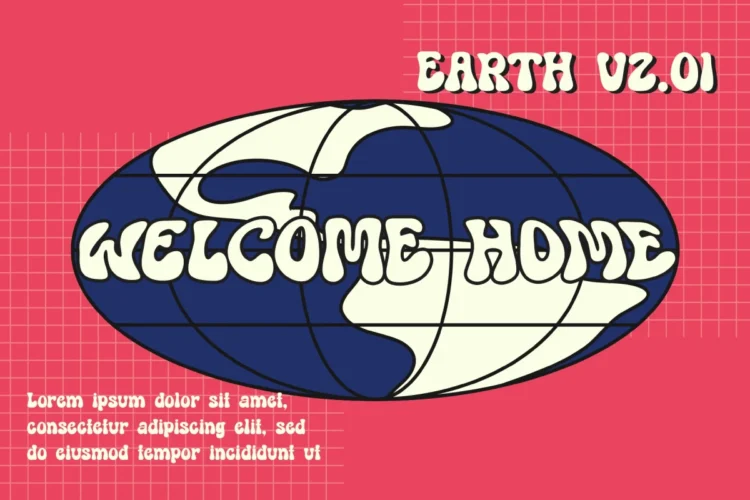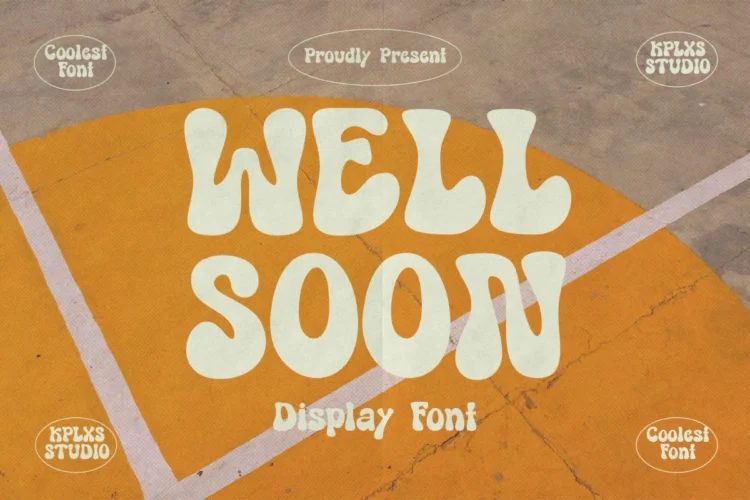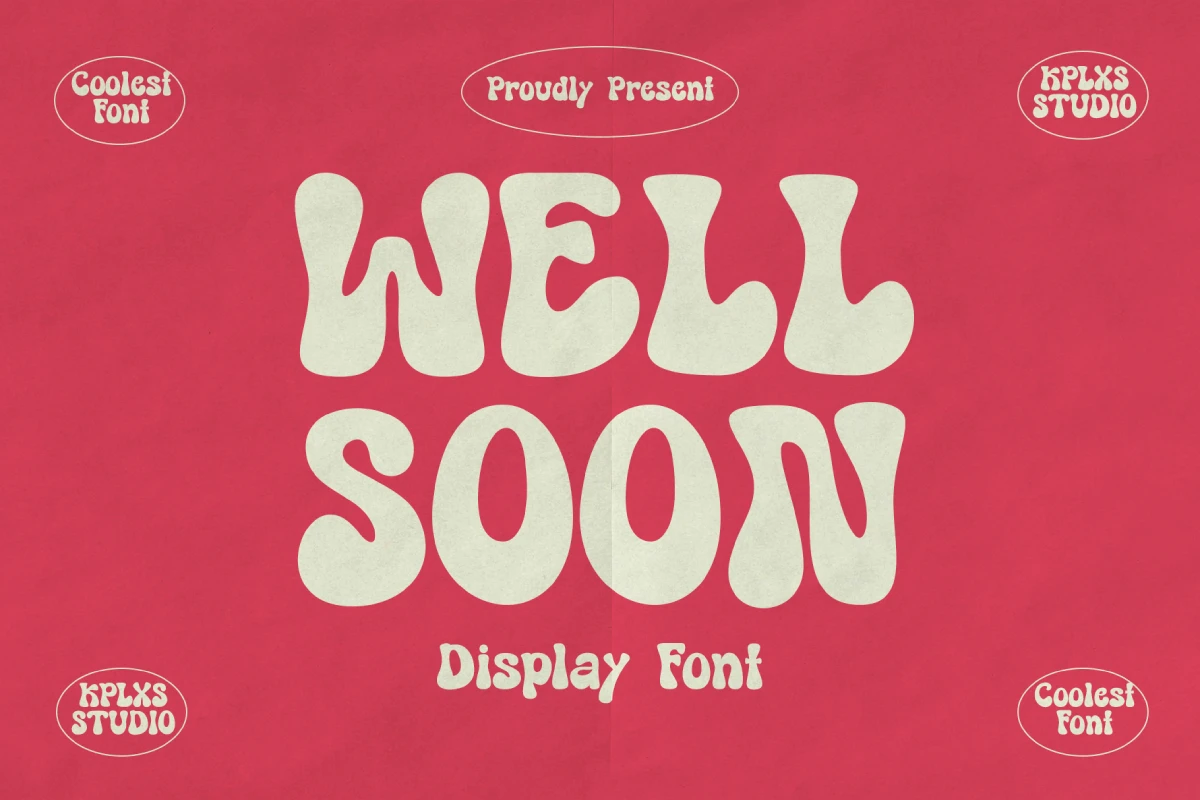
Well Soon Font – Groovy Retro Display Font for Fun, Modern, and Playful Designs
Well Soon Font is a bold and groovy font that captures the charm of the 70s retro font era. Designed as a display font, it’s perfect for adding a touch of nostalgia and fun to your creative projects. With soft curves and bubbly shapes, this playful font radiates warmth and happiness, ideal for anyone who loves fancy fonts with a modern twist.
This honey font style blends vintage aesthetics with cozy modern vibes, making it an excellent choice for designers seeking cozy fonts that pop. Whether you’re crafting a poster font for an event, a headline font for magazines, or a logo font for brands, Well Soon Font adds personality and energy to any project.
It’s also a perfect holiday font and craft font, great for DIY designs, stickers, greeting cards, or merchandise. The smooth yet expressive forms make it stand out as a fun font suitable for packaging, album covers, or social media graphics.
Well Soon Font is versatile and works beautifully for :
- Retro branding and logo design
- Posters, flyers, and event promotions
- YouTube thumbnails and streaming banners
- Album covers and music merchandise
- DIY crafts, invitations, and t-shirt prints
- Cozy café branding or holiday greetings
If you’re looking for a groovy font, retro font, or a display font that brings positive vibes and artistic flair. Well Soon Font is your go-to choice. Its modern font energy meets 70s fonts nostalgia for a unique, timeless appeal.
Transform your designs with the bold, warm, and cheerful energy of Well Soon Font today!